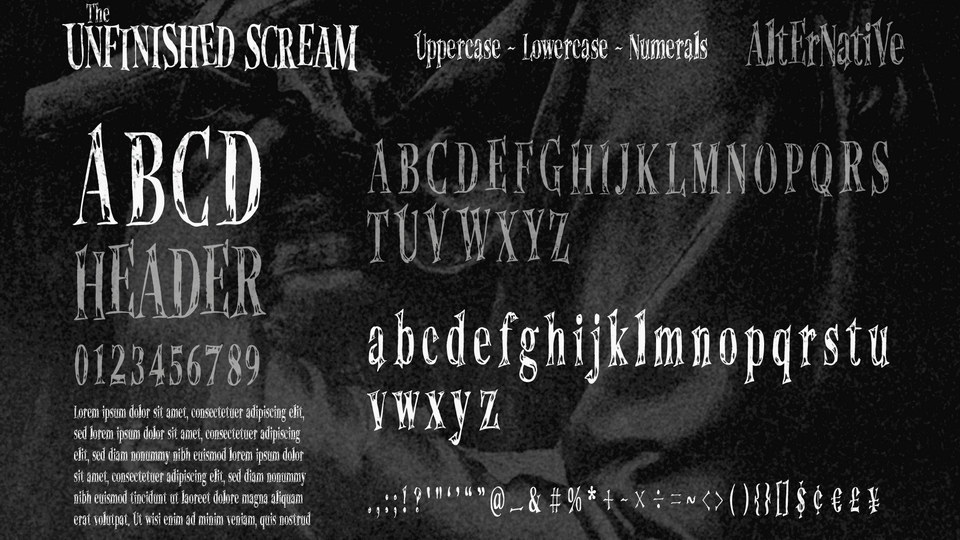
The Unfinished Scream is a display typeface that is perfect for the Halloween Season.
The design retains an interesting gothic feel with its roughly hand-drawn serifs and antique textured look. While rough around the edges and incomplete, it might just be the spooky solution you were looking for! Standard free license terms apply